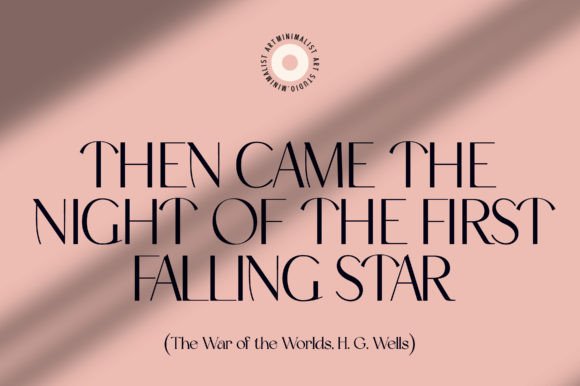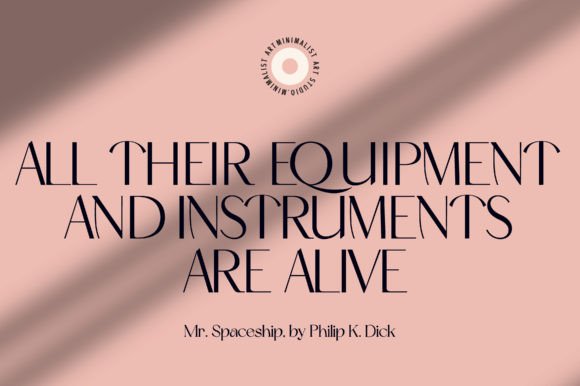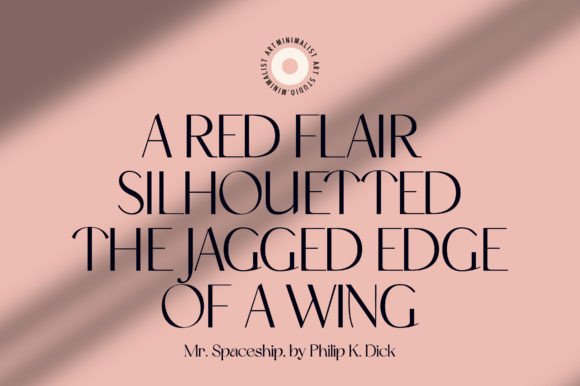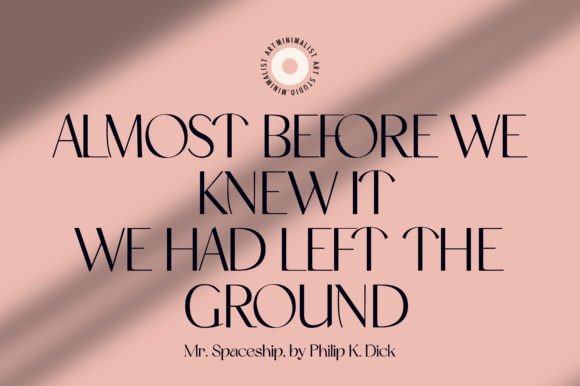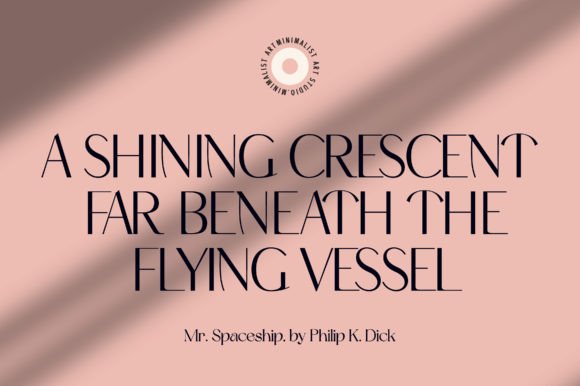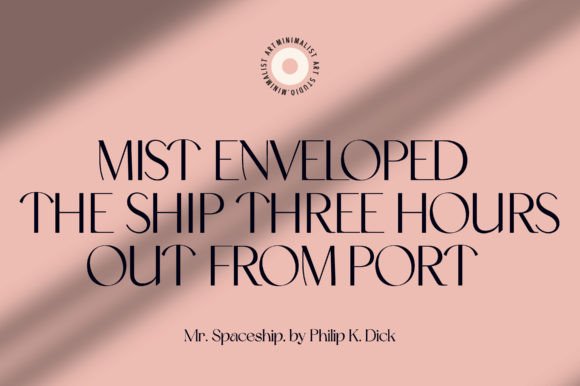
Discovering the Perfect Design Resource: Kiton Font
Remember that moment when you finally find the perfect font for your creative project? The one that makes everything click into place, and your design suddenly feels cohesive and polished? For designers, this moment is a game-changer. It’s the difference between a good design and a great one. And for those who have been searching for the ultimate sans-serif typeface, we have exciting news.
Meet Kiton Font, a high-quality design resource that’s about to revolutionize the way you approach your next creative project. With its sleek and elegant design, Kiton Font is the perfect choice for anyone looking to add a touch of sophistication and style to their work.
Key Features of Kiton Font
- Unique, elegant font style suitable for a wide range of applications, from corporate branding to artistic expressions.
- Transparent background, making it easy to layer and combine with other design elements.
- Designed with precision and attention to detail, Kiton Font is perfect for designers seeking a sophisticated and refined look.
- Comprehensive character set, including international characters and symbols, to cater to diverse design requirements.
Honest Review: Kiton Font
As a designer, I’m always on the lookout for high-quality design resources that can elevate my creative projects. Recently, I had the chance to work with the Kiton Font, and I’m excited to share my honest review with you.
- ✨ High-quality typography: The Kiton Font has a clean and elegant design that’s perfect for various design projects.
- ✨ Versatility: This font is suitable for both digital and print media, making it a great addition to any designer’s toolkit.
- ⚠️ Limited language support: The Kiton Font only supports Latin languages, which may be a limitation for designers working on international projects.
- ⚠️ No transparent background: This font doesn’t offer a transparent background option, which may be a drawback for designers who need to work with complex backgrounds.
Overall, I’m impressed with the Kiton Font’s high-quality typography and versatility. While it has some limitations, it’s still a valuable addition to any designer’s toolkit, especially for those working on creative projects that require a clean and elegant design.
Tips for Getting the Most Out of Kiton Font
To get the most out of Kiton Font, try using it with a transparent background to create a unique and creative design. You can also experiment with different font sizes and styles to create a high-quality look.
The Kiton Font is commonly used in creative projects such as logo design, branding, and typography-based designs. It’s also a popular choice for designers who want to add a high-quality and unique touch to their designs.